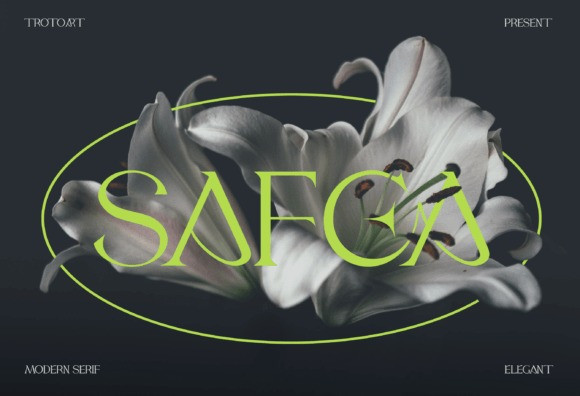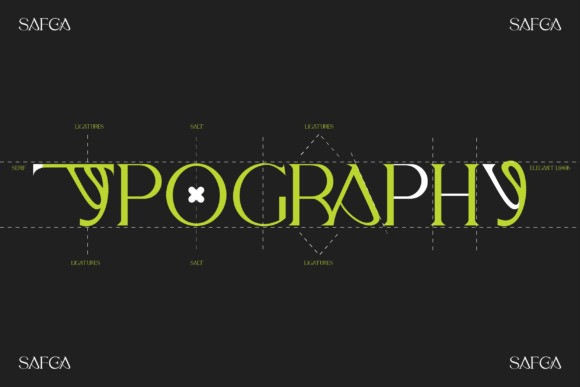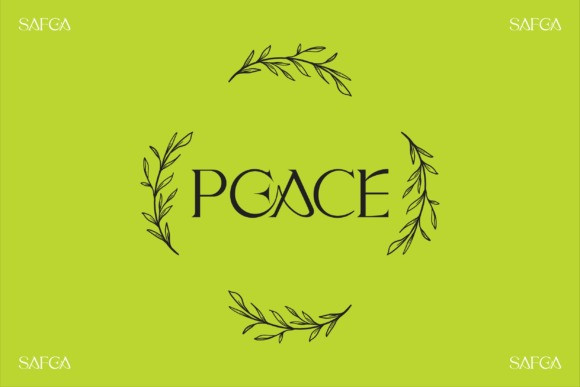
Safea Font
Safea is a sophisticated, charming serif font with a fashionable touch. Specially designed for luxury, elegant, feminine projects, this font is perfectly suitable for creating modern, chic designs.